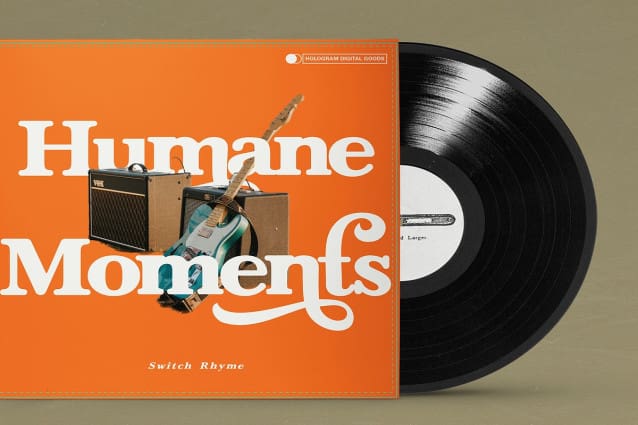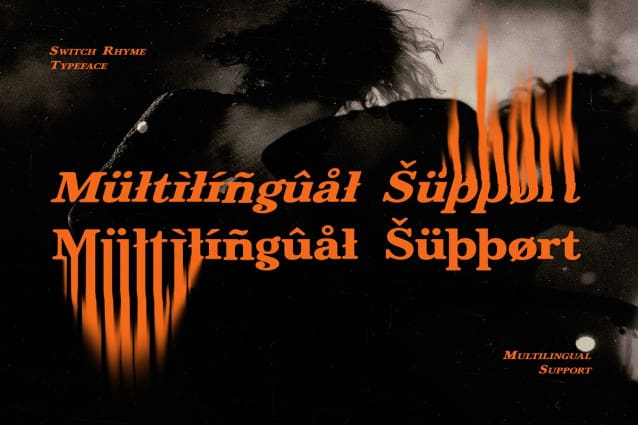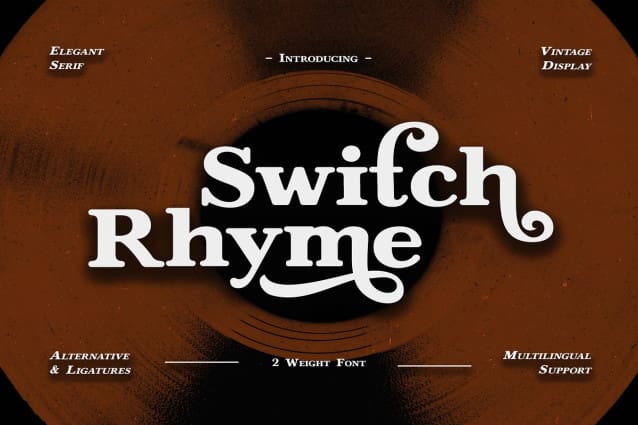
Switch Rhyme Font
Switch Rhyme Font is a versatile serif font that seamlessly blends classic elegance with contemporary design sensibilities. Its refined letterforms, characterized by graceful curves and distinctive serifs, evoke a sense of tradition and sophistication. The font’s versatility is enhanced by the inclusion of both regular and italic styles, offering designers a broad palette for creative expression. Whether used for print or digital applications, Switch Rhyme adds a touch of timeless charm to any project.